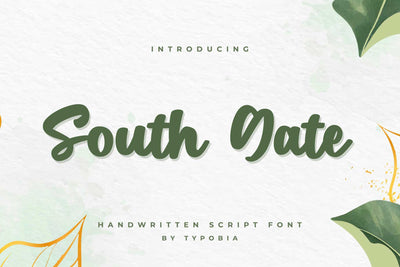
South Gate - A Modern Script Font
South Gate is a modern script font, this font has rounded shape that perfect for your design project. This font is PUA encoded which means you can access all of the glyphs with ease!